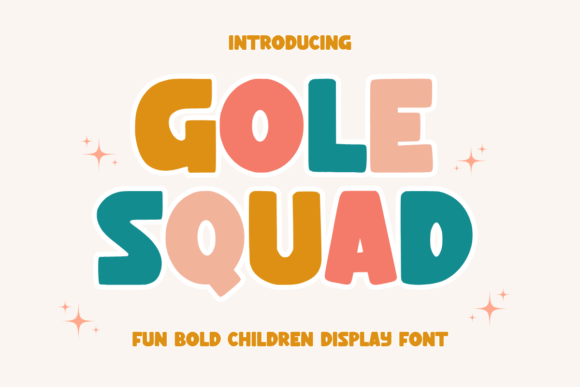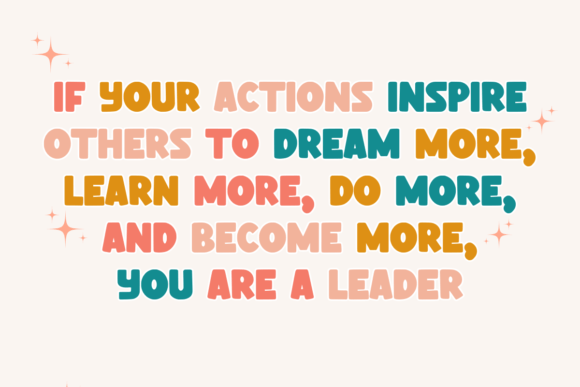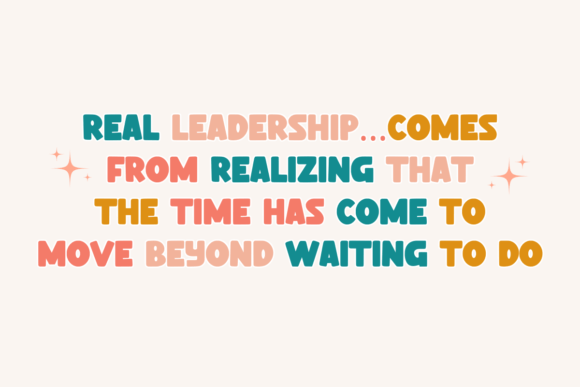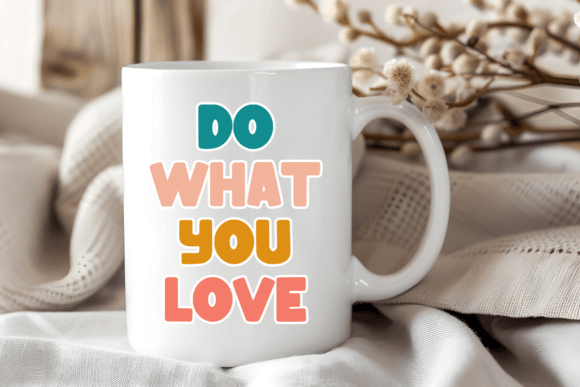
Gole Squad Font
About the Gole Squad Font
Unleash your creativity with Gole Squad Font, a versatile font perfect for a wide range of applications. Gole Squad is a fun bold children display font. this font is ready to be used in any project. Very suitable for logotype, Stickers, Packaging design, Cricut Project, headlines, brand identity, t shirt or apparel industry, posters, magazines, books, YouTube, Instagram, websites, or any of your creative design projects.
Gole Squad’s playful boldness makes it ideal for headlines, logos, and short, impactful text across various branding applications, especially those targeting younger demographics. It excels in packaging design, posters, and social media graphics where a strong visual statement is needed. However, its weight and character spacing make it less suitable for body text or lengthy paragraphs; readability suffers at smaller sizes.
For a balanced aesthetic, pair Gole Squad with a clean sans-serif like Open Sans for body copy or a more delicate script font such as Great Vibes for added elegance. A geometric sans-serif like Montserrat could also create a stylish contrast, offering modern sophistication to Gole Squad’s energetic presence.
The font’s core personality is undeniably bold and friendly, making it a great choice for projects needing a vibrant, approachable feel. Avoid pairing it with overly serious or ornate fonts; maintaining a consistent level of energy throughout the design is crucial to its success.